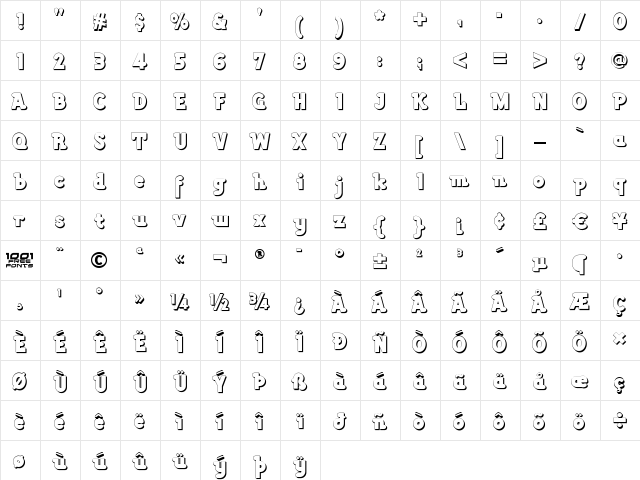
Lackawanna Weed NF Regular
Design Context for Lackawanna Weed NF Typeface
Lackawanna Weed NF is a composed and adaptable typeface that performs quietly and consistently across a wide range of design contexts.